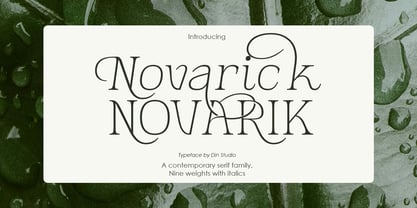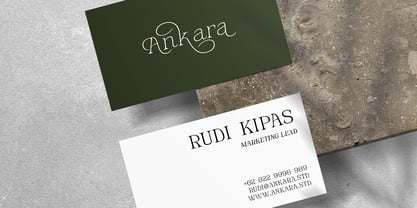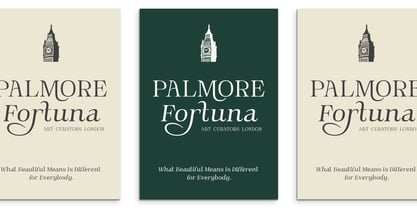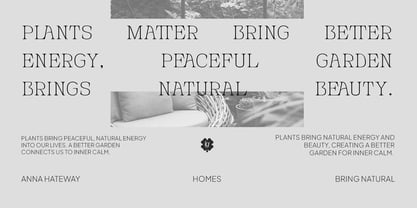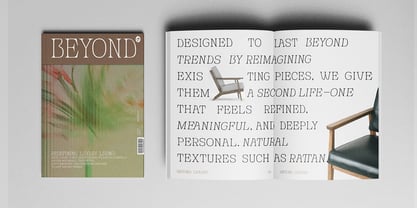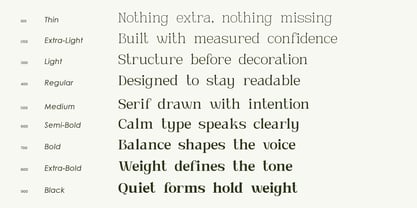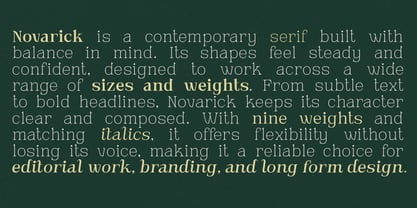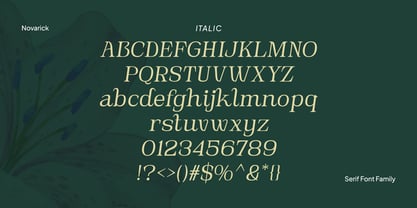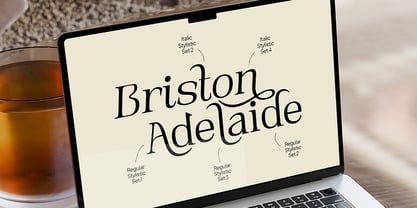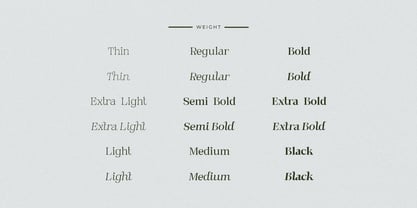
Novarick
Novarick is a sophisticated serif font family designed in a contemporary style. Carefully crafted with refined proportions and clean serif details, Novarick offers a polished typographic experience suitable for a wide range of creative projects. Its modern approach to classic serif design makes it an ideal choice for designers seeking a font family that feels both professional and stylish. What makes Novarick more special is its beautifully designed italic version, which adds depth, movement, and expressive character to the typeface. In addition, enjoy the features here.
Features:
• Alternates
• Ligatures
• Multilingual Supports
• PUA Encoded
• Numerals and Punctuations
Novarick fits in logos, quotes, name cards, branding, posters, and many more designs. Find out more ways to use this font by taking a look at the font preview.